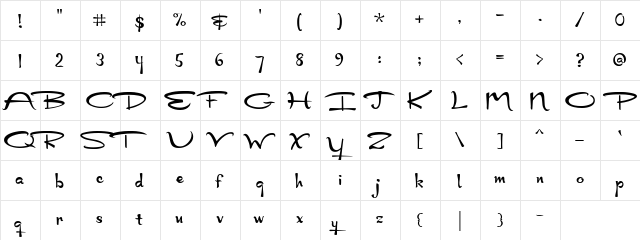
CK Retrospect Regular
Design Context for CK Retrospect Typeface
CK Retrospect wears its vintage influences proudly, with letterforms that recall mid-century signage, classic packaging, and nostalgia-driven design.
Font Pairing: Combine CK Retrospect with a simple slab or neutral sans — period-accurate companions reinforce the vintage feel without competing for attention.
Pro Tip: Lean into CK Retrospect's period character by pairing it with aged paper textures, muted colour palettes, and vintage illustration styles.